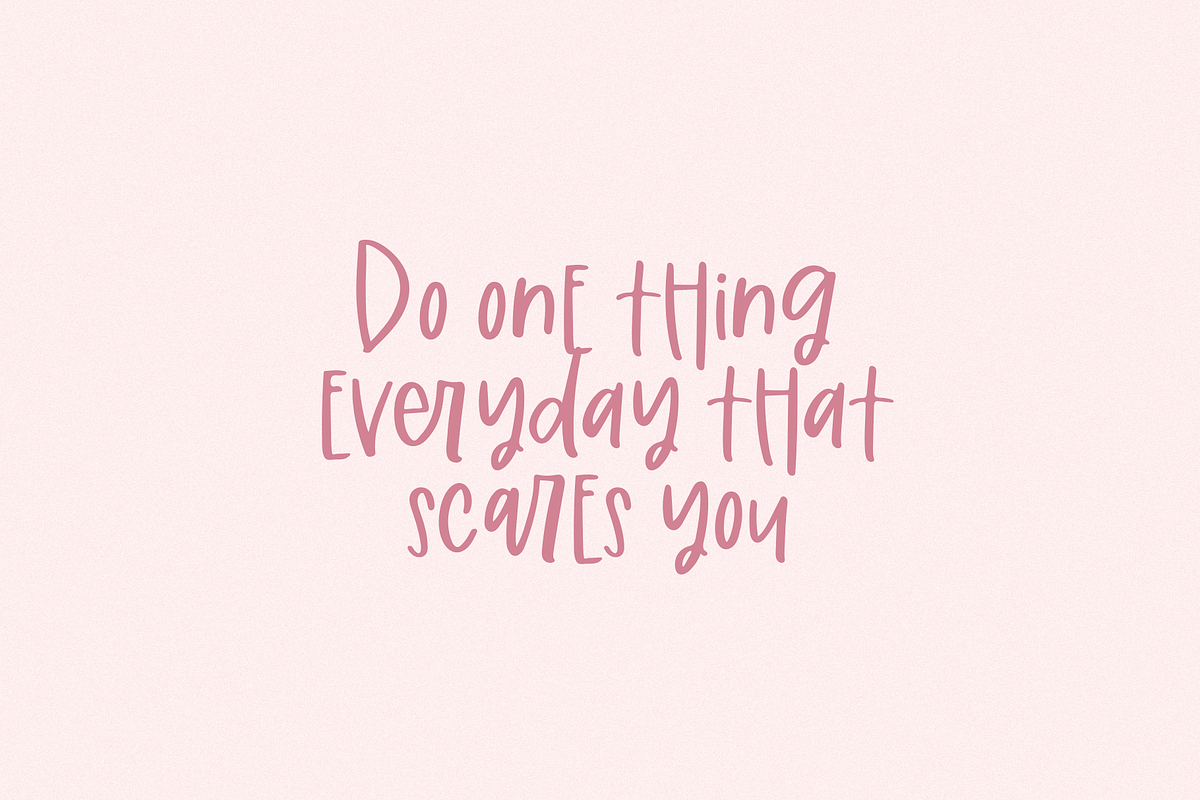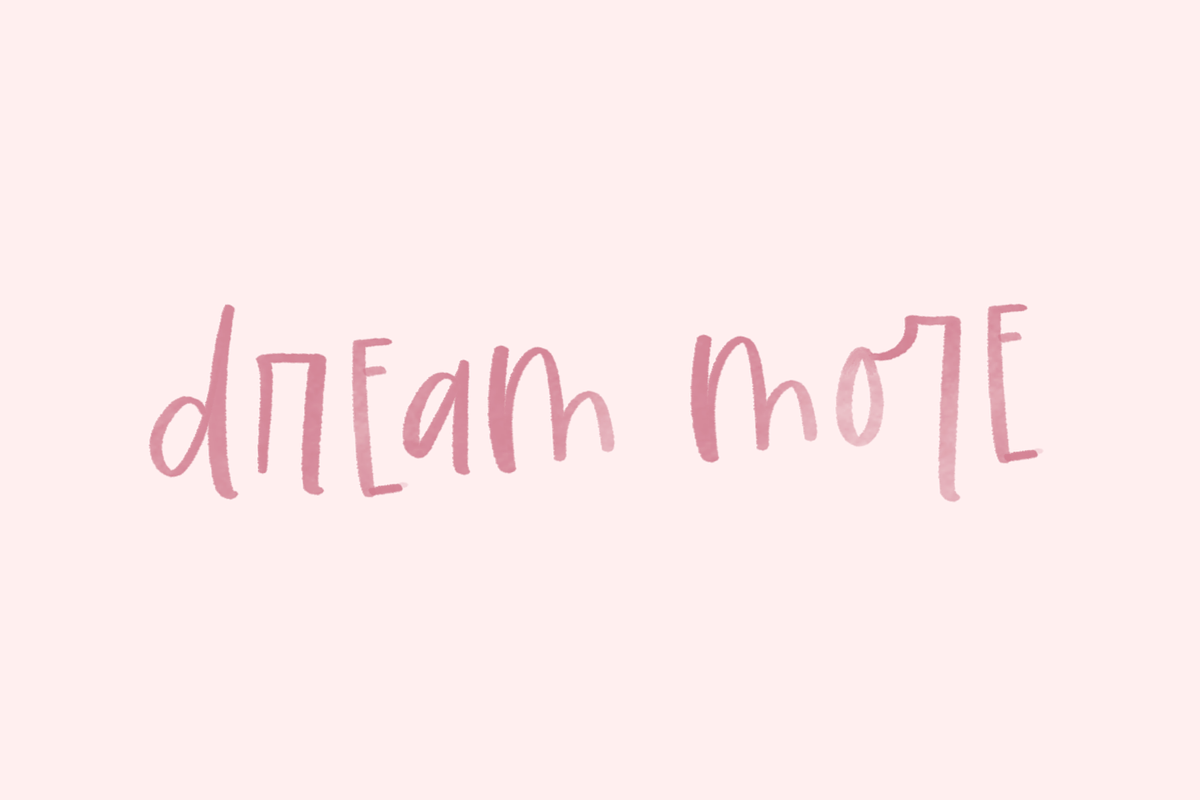
Possibilities | Handwritten SVG Font
Possibilities is fun handwritten font. This font includes a textured/transparent SVG font file and a solid file. Use this font for logos, social media, websites, blogs, instagram, business cards, branding, and more!
Possibilities | Handwritten SVG Font by KA Designs fits naturally into Branding, posters, packaging, typography.